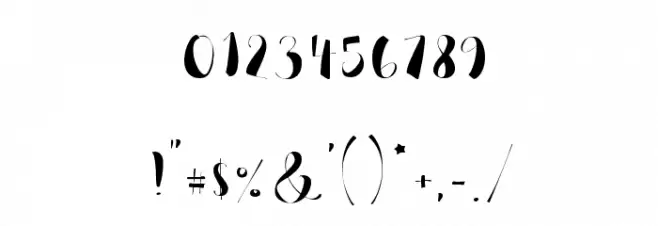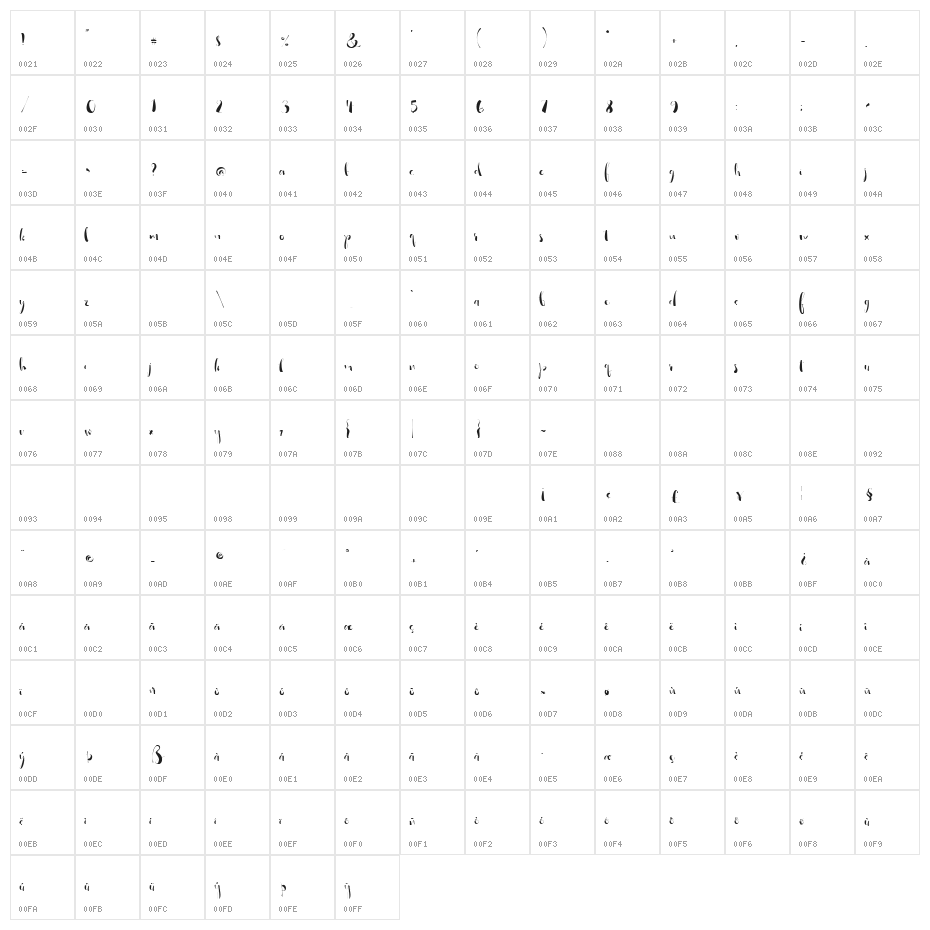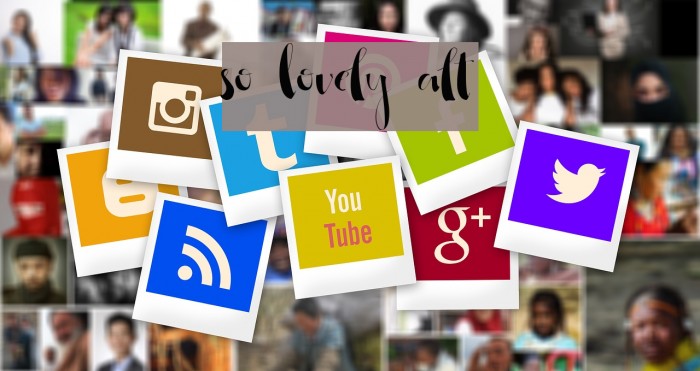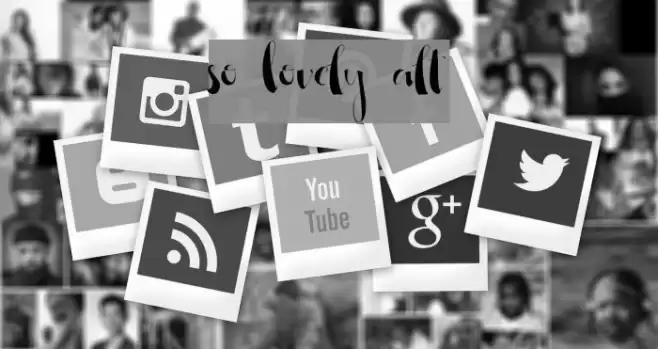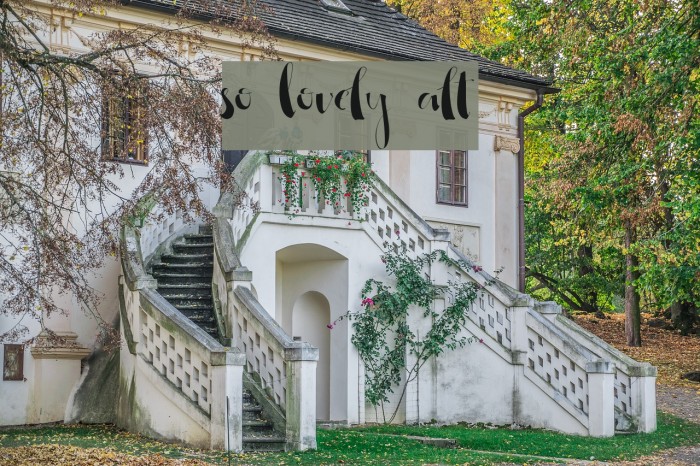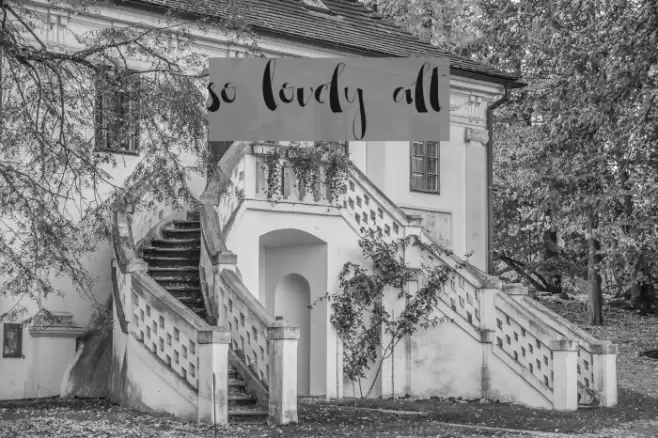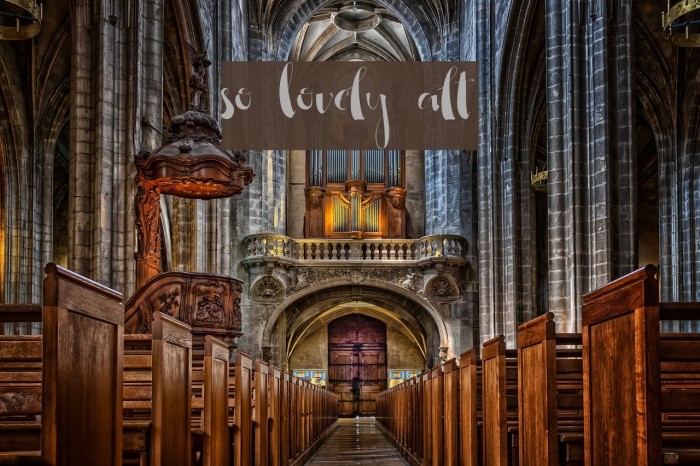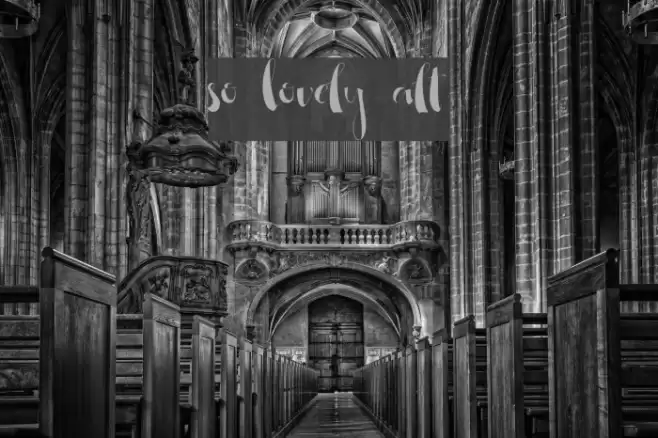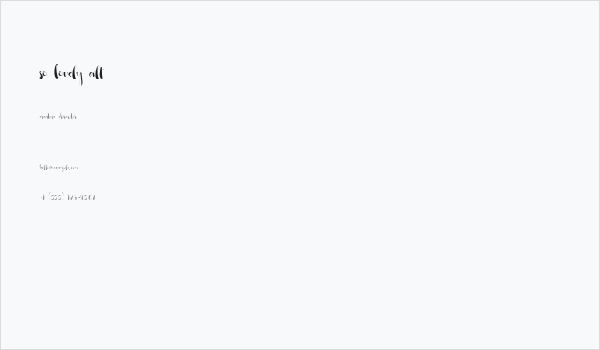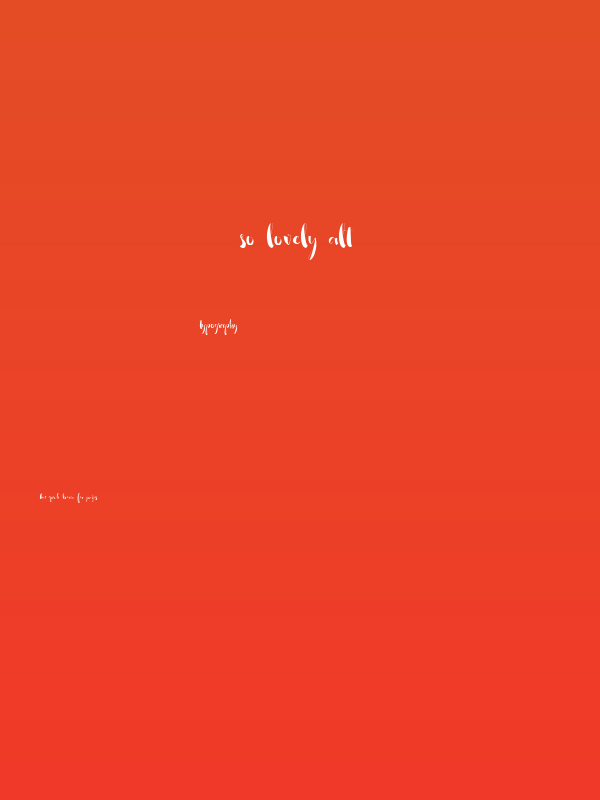
So Lovely Alt Font
So Lovely Alt Description
This font exudes a charming and whimsical style, characterized by its flowing, cursive script that mimics elegant handwriting. The letters are crafted with a playful flair, featuring exaggerated loops and swirls that add a sense of movement and grace. The strokes vary in thickness, creating a dynamic contrast that enhances its visual appeal. This font is particularly suitable for creative projects that require a personal touch, such as invitations, greeting cards, and branding materials. Its unique style makes it stand out, while still maintaining readability.
Use CaseLogos, Headlines
Proposed ProjectsIdeal for invitations, greeting cards, and branding materials.